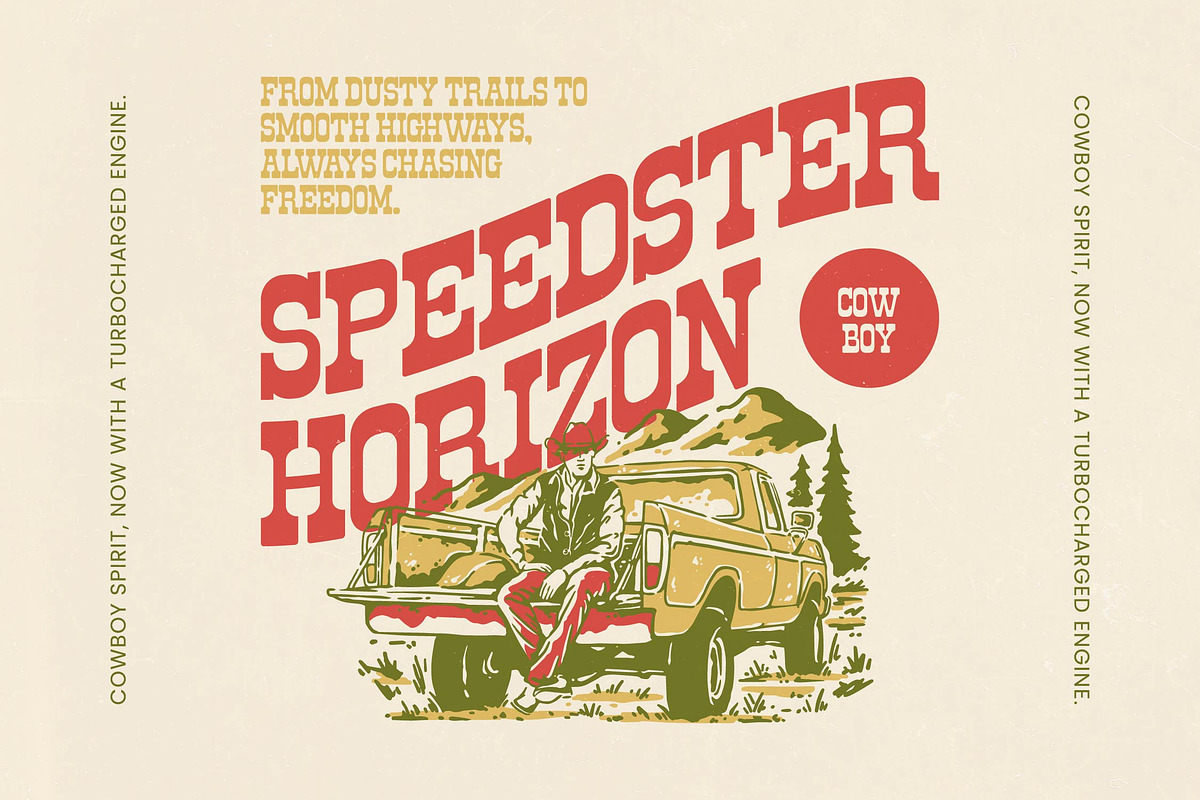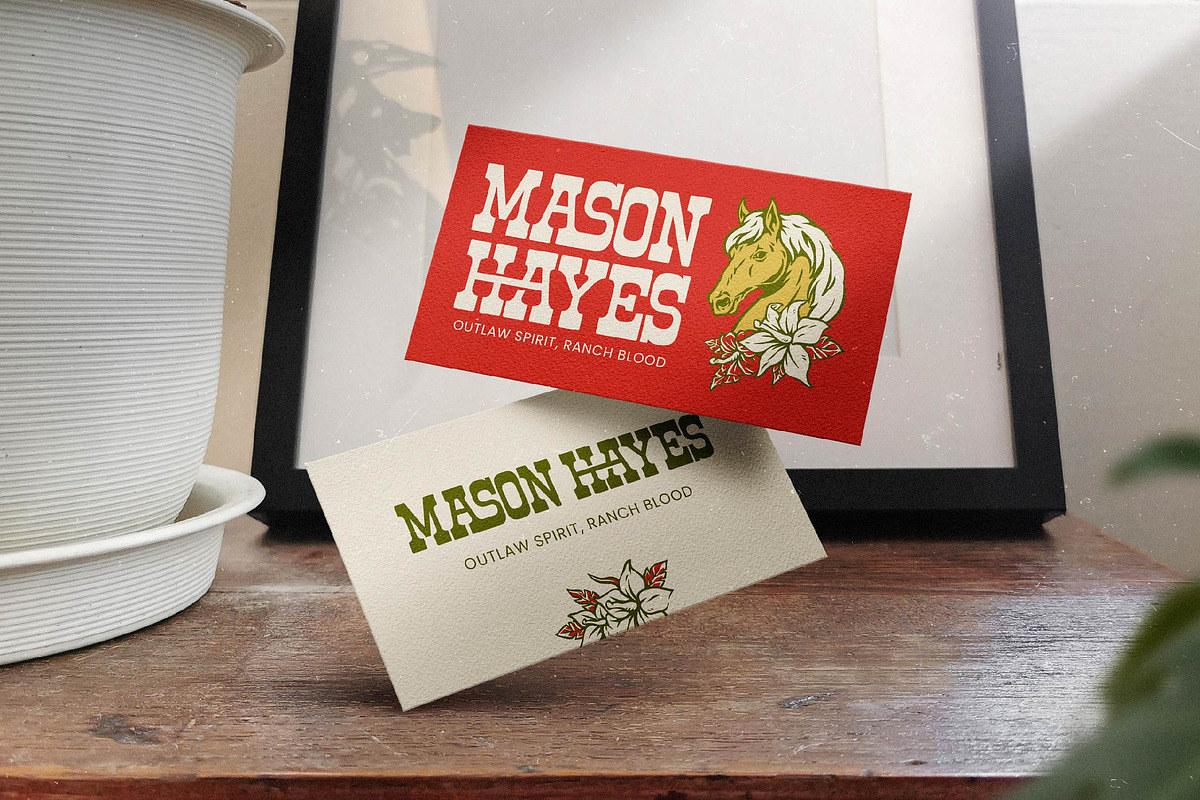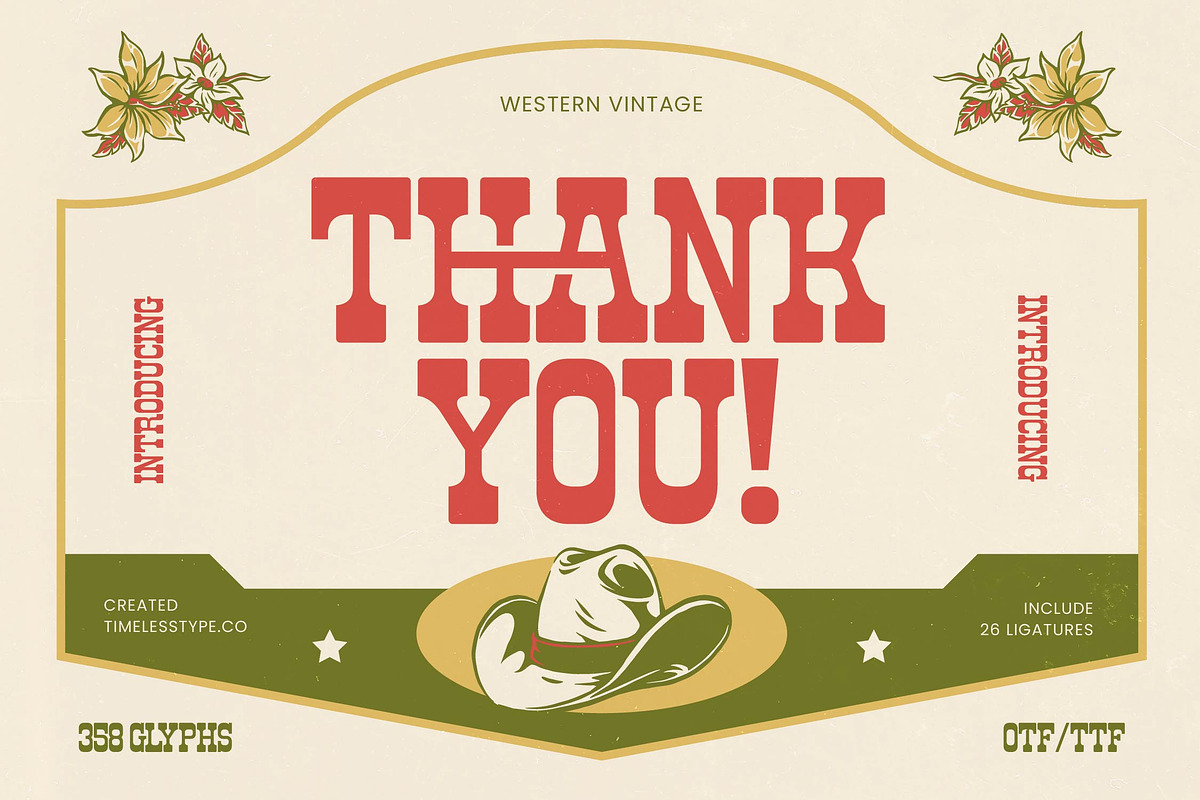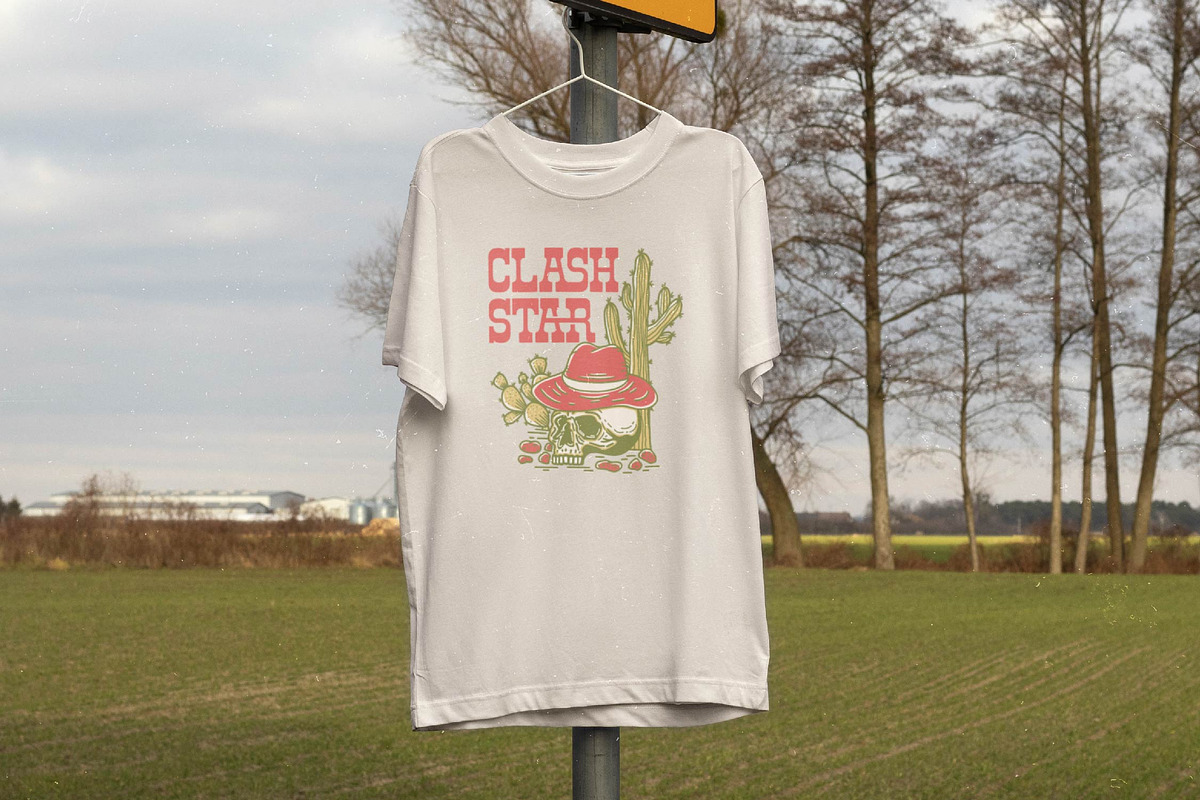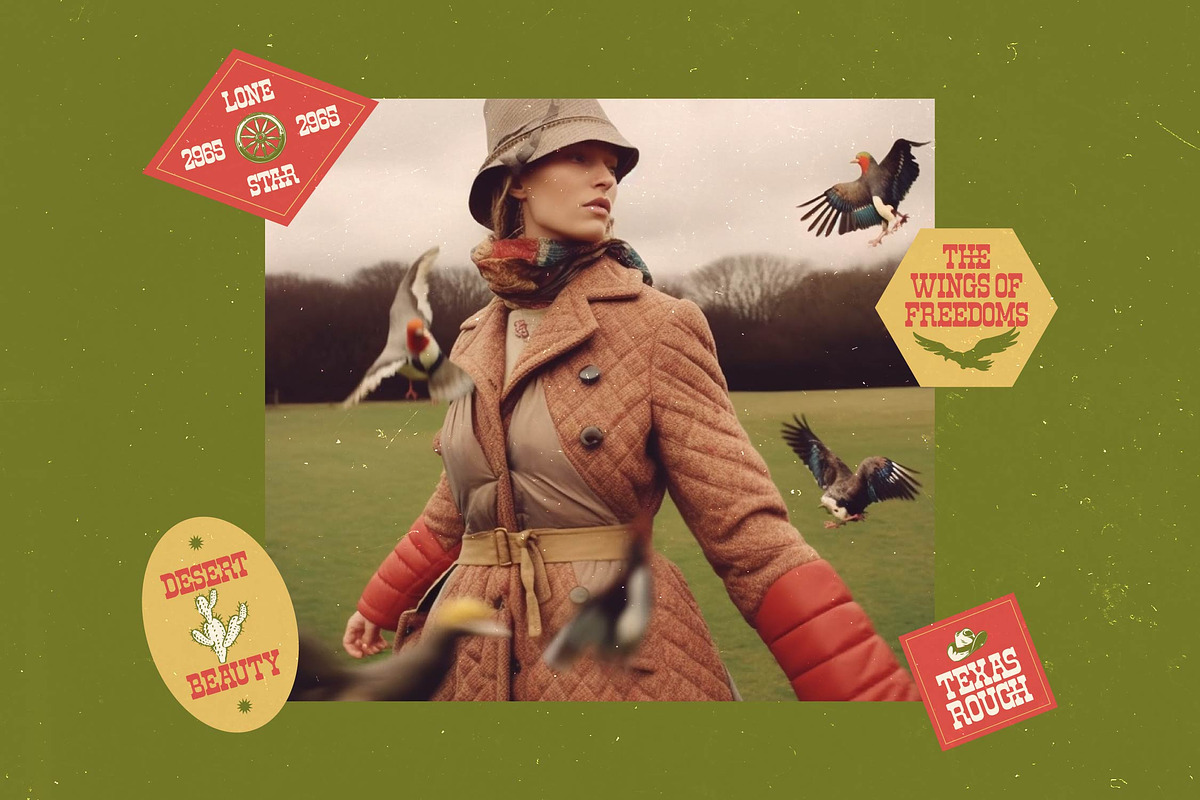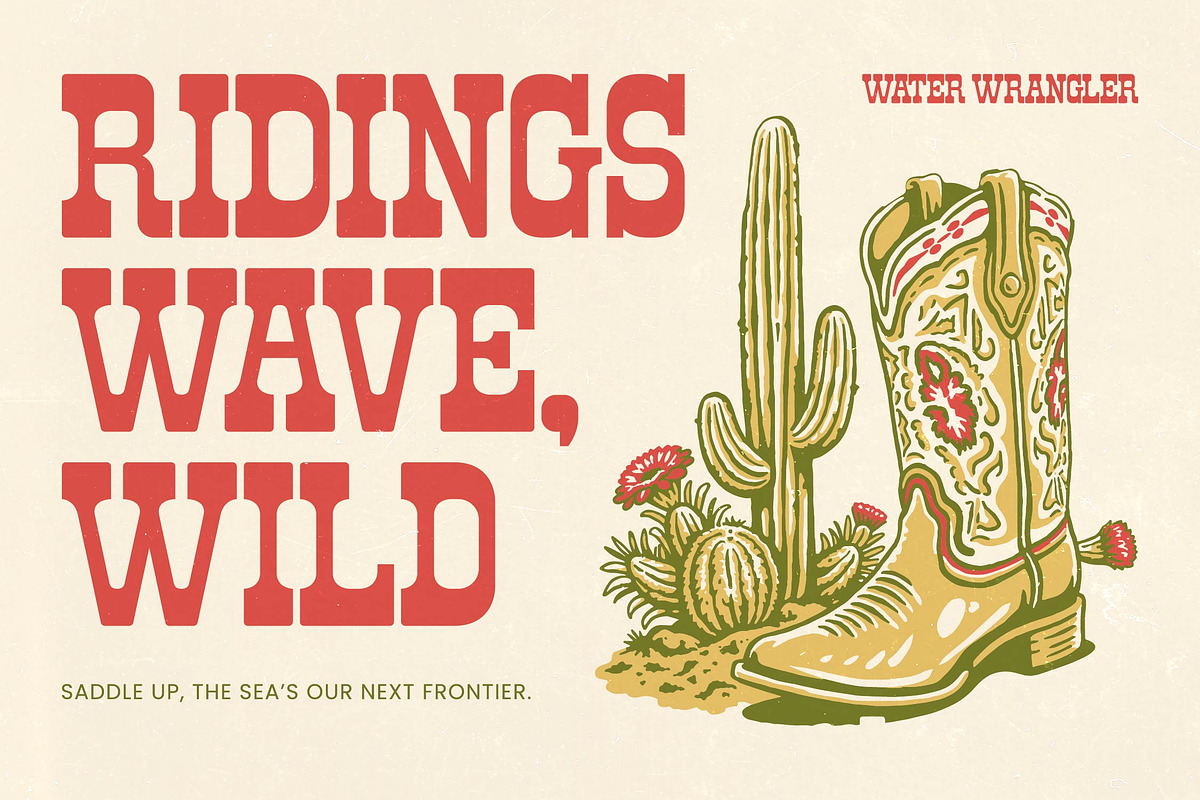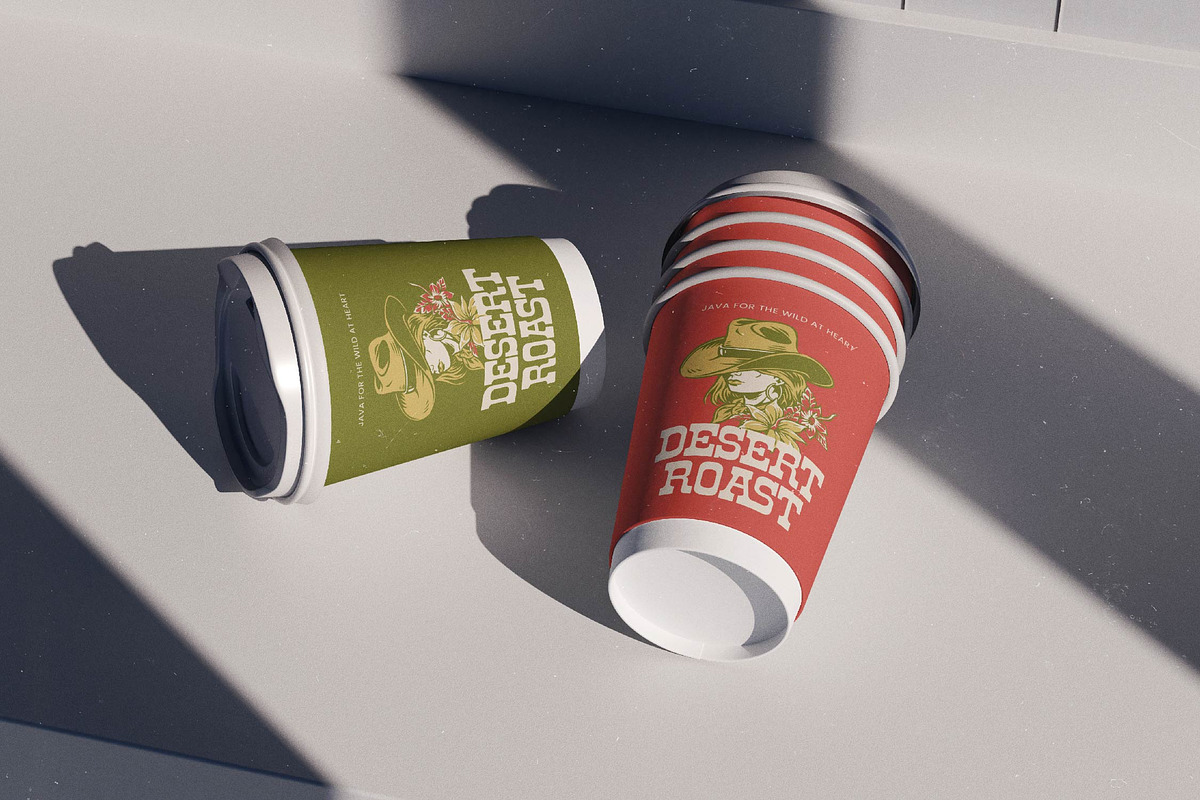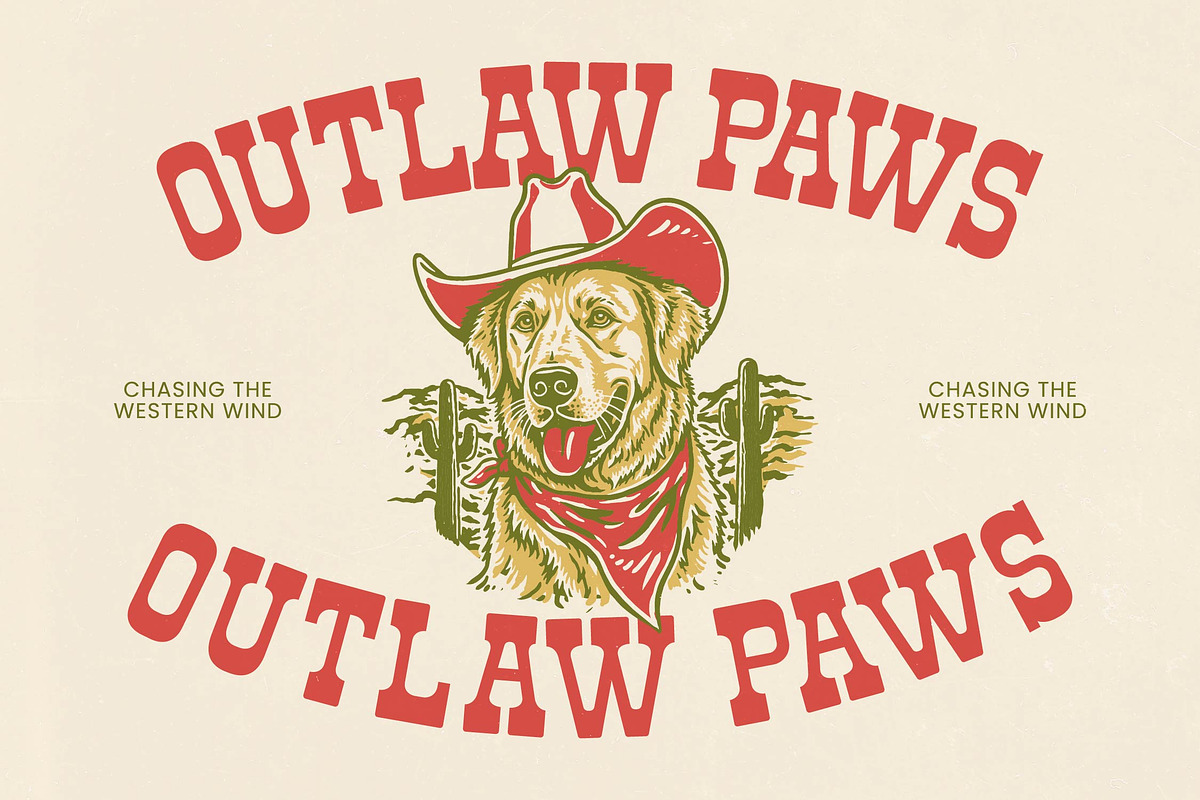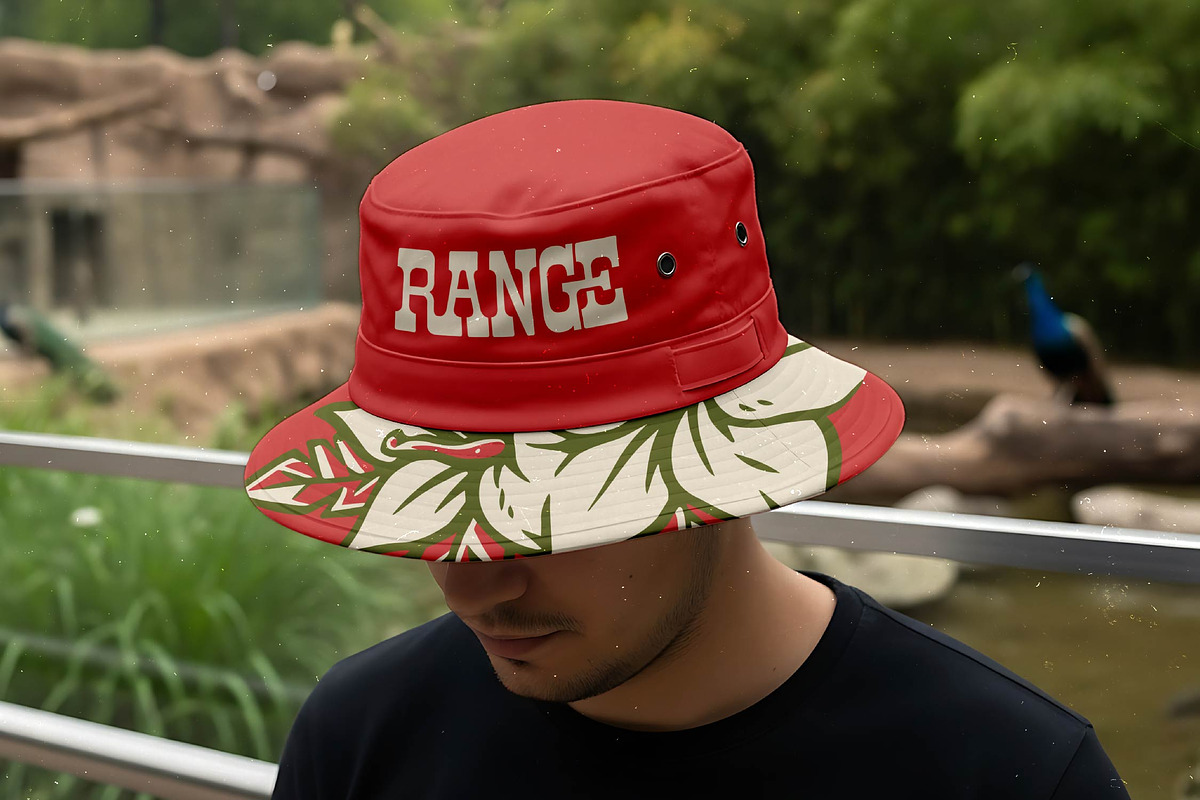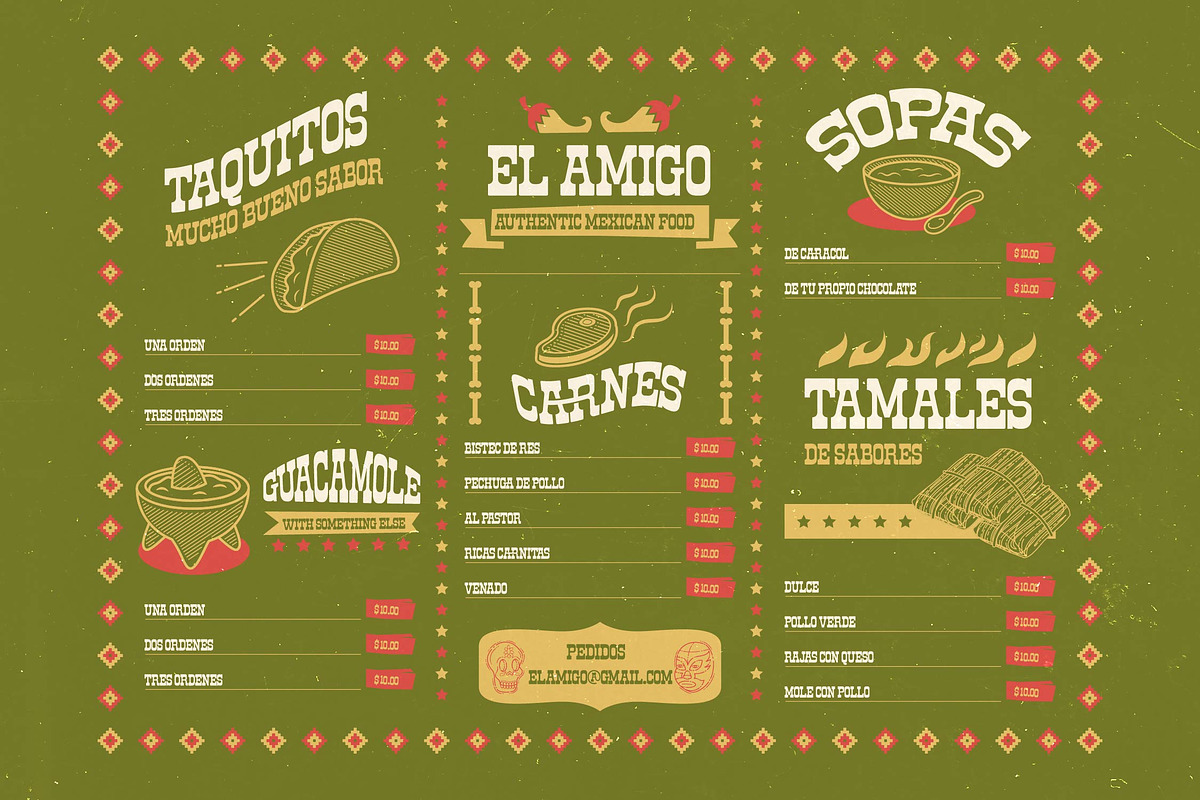
Rodeo Drinks Western Vintage Font
Rodeo Drinks - Western Vintage Font , Capture the spirit of the untamed frontier with Rodeo Drinks, a typeface that embodies the bold energy of the Wild West. This font is meticulously crafted to command attention while maintaining a sense of classic, hand-finished craftsmanship.
Inspired by the dusty trails and sun-drenched saloons of the American frontier, the visual identity of this typeface draws from vintage signage and historical wood-block printing. It evokes a landscape of desert heat, worn leather saddles, and the rugged independence of the pioneer spirit.
As a powerful modern serif display, this typeface delivers a massive branding impact through its heavy, grounded letterforms. It functions as a high-contrast serif with a chunky weight, providing a sophisticated yet earthy luxury typography feel that is perfect for any bold editorial font project.
Tapping into the current modern serif trend, this typeface aligns perfectly with the rise of character-driven typography seen in heritage and lifestyle brands. It stands out among editorial display fonts by offering a unique ruggedness that balances vintage nostalgia with sharp contemporary design precision.
This versatile typeface is the ideal choice for high-impact logo design and distinctive branding across a variety of industries. It excels in packaging for craft spirits and outdoor gear, adds a unique flair to editorial layouts, and provides a bold touch for fashion labels or even unconventional wedding stationery.
The technical package is feature-rich, including a comprehensive set of ligatures and alternates that allow for custom character combinations and fluid text flow. With full multilingual support and a wide range of international characters, including swashes, it ensures your designs speak to a global audience with consistent style.